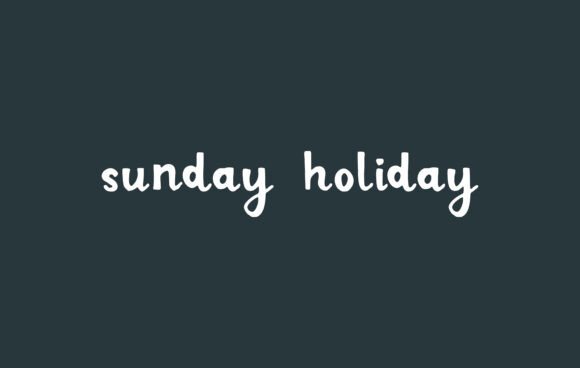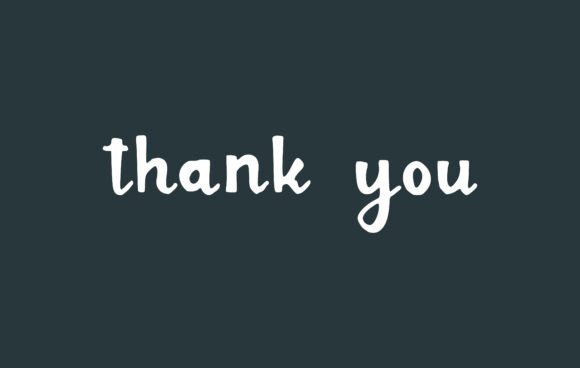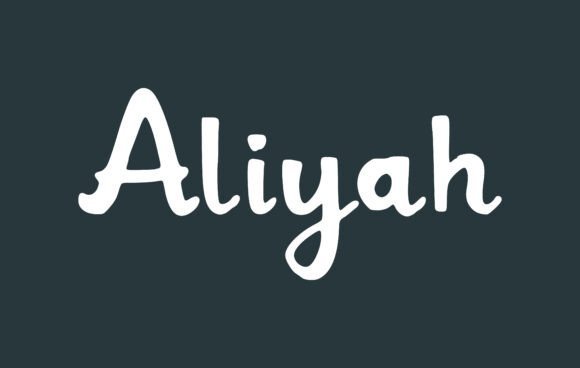
Unlocking the Magic of Handwritten Typography
Have you ever been in the midst of a creative brainstorming session, pouring your heart and soul into a design project, only to be stuck on the perfect font? The words, the emotions, the message – everything is there, but the right font to bring it all together seems elusive. That’s where the Aliyah Font comes in, a beautifully crafted handwritten font designed to transport your audience to a world of romance and elegance.
This charming font is perfect for designers who want to add a touch of personality to their work, and its versatility makes it suitable for a wide range of projects, from magazine headlines to wedding invitations. With its legibility and aesthetic appeal, the Aliyah Font is a valuable addition to any designer’s toolkit, allowing them to take their creative ideas to new heights.
Aliyah Font Key Features
- Font Style: Script font with a unique, cursive style.
- Unique Characteristics: Features a flowing, handwritten feel with subtle flourishes and swashes, making it ideal for creative and decorative typography.
Aliyah Font Review
As a designer, I was excited to dive into the Aliyah font and see what it had to offer. Here’s my honest take:
- Unique design aesthetic: Aliyah has a distinctive and elegant feel to it, making it perfect for projects that need a touch of sophistication.
- Wide language support: This font supports a wide range of languages, making it a great choice for multilingual projects.
- High-quality glyphs: The font’s glyphs are well-crafted and highly detailed, ensuring that text looks crisp and clear.
- Limited font weights: Aliyah only comes in a few font weights, which may limit its versatility in certain design projects.
- No italic or oblique styles: While the font’s regular style is beautiful, the lack of italic or oblique options may be a drawback for some designers.
Aliyah is a solid choice for designers looking for a unique and elegant font. While it may have some limitations, its strengths far outweigh its weaknesses. With a bit of creativity, this font can add a touch of sophistication to any project.
For best results, use Aliyah font in headings and titles to create a cohesive look.
Use Aliyah font to create bold, eye-catching headings and titles in your designs.
For best results, use Aliyah font in headings and titles to create a professional look.
Aliyah font is ideal for:
1. Creating bold, eye-catching headings and titles.
2. Adding a touch of elegance to wedding invitations and stationery.
3. Designing professional-looking business cards and resumes.
4. Creating engaging social media graphics and advertisements.
Alternatives to Aliyah Font
Open Sans is a modern sans-serif font designed by Steve Matteson. It is suitable for body text and is highly legible even at small font sizes. Use Open Sans for digital products, websites, and mobile applications.
Compared to Aliyah Font, Open Sans has a more neutral and clean design, whereas Aliyah Font has a more elegant and sophisticated look. Open Sans is also more versatile and can be used in a wider range of contexts.
Montserrat is a sans-serif font designed by Julieta Ulanovsky. It is inspired by the urban landscape of Montserrat, Argentina, and is suitable for titles and headings. Use Montserrat for branding, logos, and other visual identity elements.
Compared to Aliyah Font, Montserrat has a more geometric and modern design, whereas Aliyah Font has a more elegant and classic look. Montserrat is also more suitable for digital products and can be used in a variety of contexts.
Lato is a sans-serif font designed by Łukasz Dziedzic. It is suitable for body text and is highly legible even at small font sizes. Use Lato for digital products, websites, and mobile applications.
Compared to Aliyah Font, Lato has a more modern and sleek design, whereas Aliyah Font has a more elegant and sophisticated look. Lato is also more versatile and can be used in a wider range of contexts.